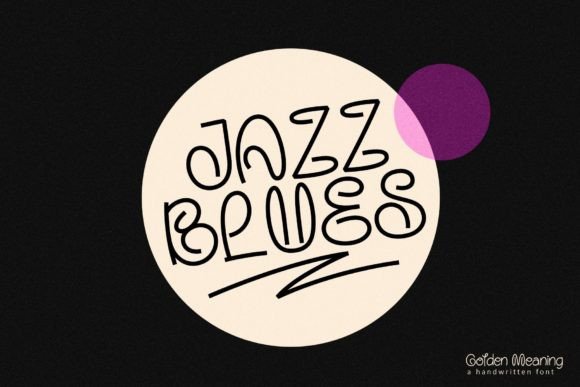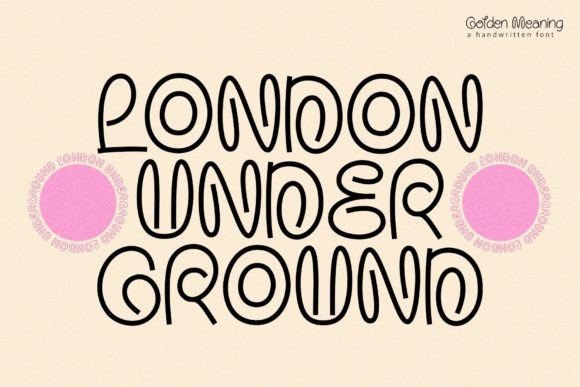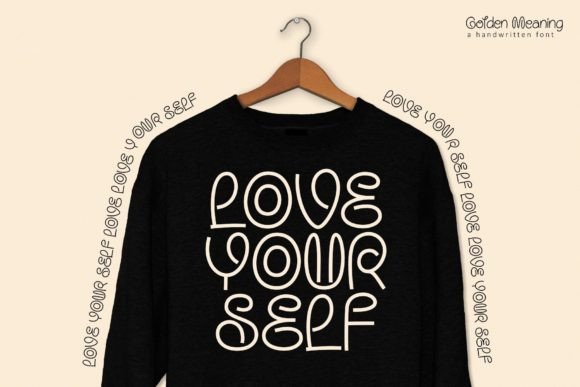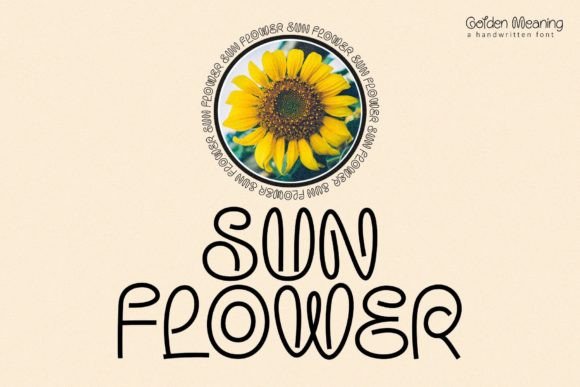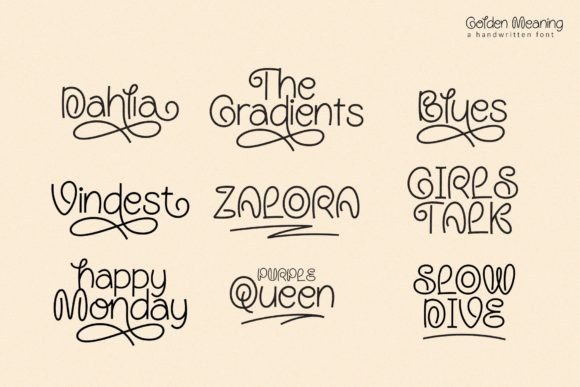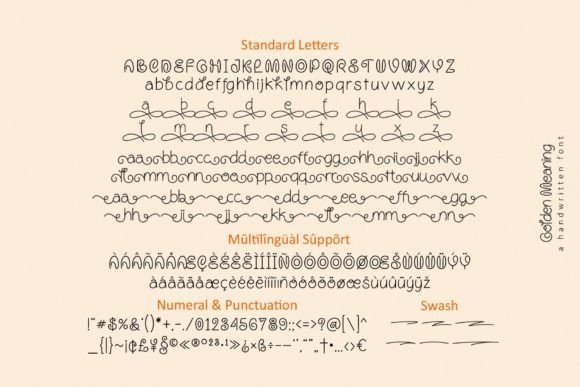
Introduction to Golden Meaning Font
As a designer, there’s nothing quite like the thrill of discovering a new font that sparks your creativity. For me, it’s like stumbling upon a hidden treasure trove of design resources, just waiting to be unlocked. And that’s exactly what happened when I came across the Golden Meaning Font.
This charming handwritten font is a true gem, with its unique and fun style making it the perfect addition to any creative project. Whether you’re designing letterheads, titles, or stationery, the Golden Meaning Font is sure to add a touch of personality and whimsy to your work. And with its PUA encoding, accessing all the glyphs and swashes is a breeze, making it a valuable resource for designers looking to add a little extra flair to their designs.
With its high-quality design and transparent background, the Golden Meaning Font is a free download that’s sure to become a staple in your design arsenal. So why not give it a try and see what kind of creative magic you can create with this amazing font?
Key Features of Golden Meaning Font
- Unique and elegant design, perfect for creative projects that require a touch of sophistication.
- High-quality font with a transparent background, ideal for designers who need a versatile design resource.
- Perfect for use in digital and print projects, including logos, branding materials, and typography-based designs.
- Designed to be highly legible and readable, even at small font sizes, making it an excellent choice for body text and headings.
- Includes a comprehensive character set, covering a wide range of languages and special characters, making it a valuable asset for multilingual projects.
Honest Review: Golden Meaning Font
As a designer, I’m always on the lookout for high-quality design resources to elevate my creative projects. The Golden Meaning Font is one such resource that caught my attention. After trying it out, I’m excited to share my honest review.
What works well: ✨ The font is incredibly versatile and works well for a variety of design applications, from digital interfaces to print materials. The sleek and modern design makes it a great choice for minimalist projects. I also appreciate the transparent background, which makes it easy to customize and combine with other design elements.
What doesn’t work well: ⚠️ While the font is free to download, it’s not without its limitations. The character set is somewhat limited, which may not be ideal for projects that require a wide range of characters. Additionally, the font may not be suitable for certain design styles or industries.
Overall impression: I’m impressed with the Golden Meaning Font, and I think it’s a great addition to any designer’s toolkit. With its high quality and versatility, it’s a great choice for a wide range of creative projects. If you’re looking for a free design resource, this font is definitely worth checking out.
- High quality and versatile design
The Golden Meaning Font is a high-quality, free design resource perfect for adding a touch of elegance to your creative projects. With a transparent background, this font is highly versatile and can be used in a variety of contexts.
The Golden Meaning Font is perfect for a variety of creative projects, including invitations, business cards, and social media graphics. Its elegant and sophisticated design makes it ideal for use in formal and professional contexts.